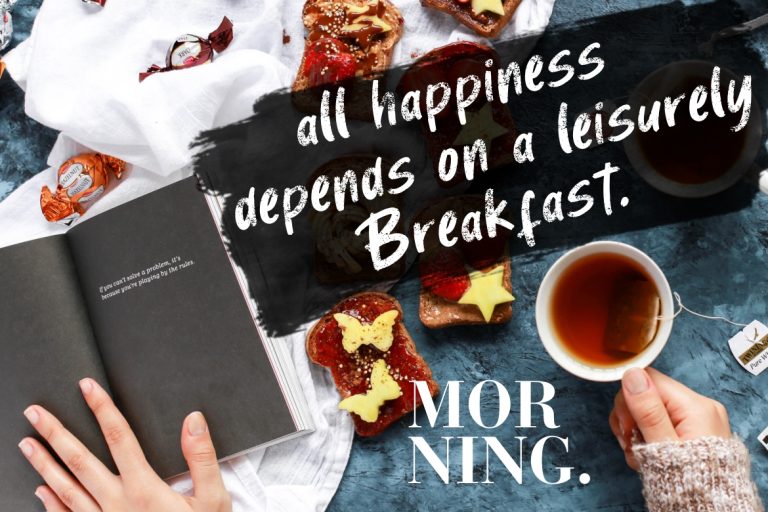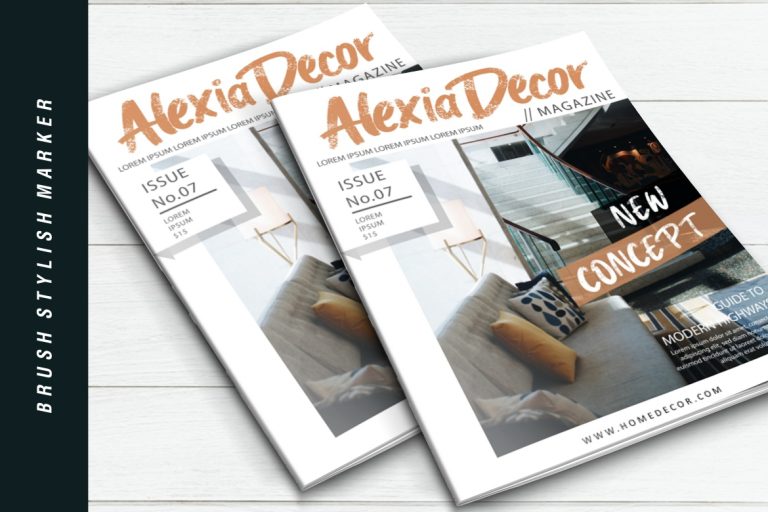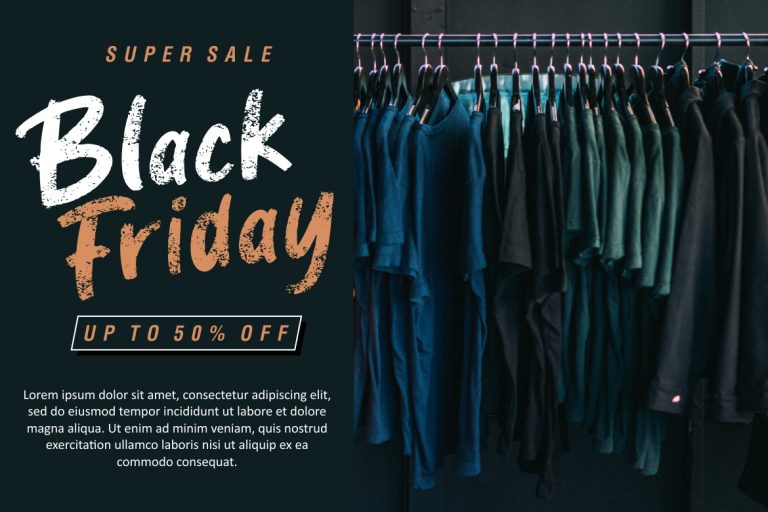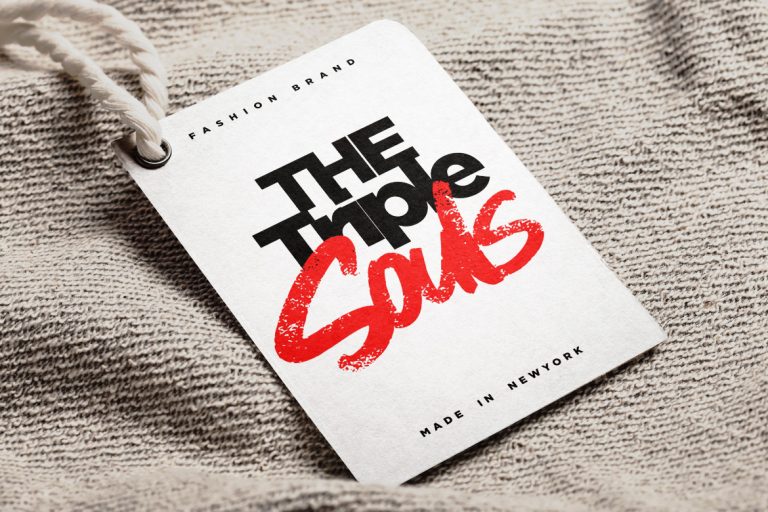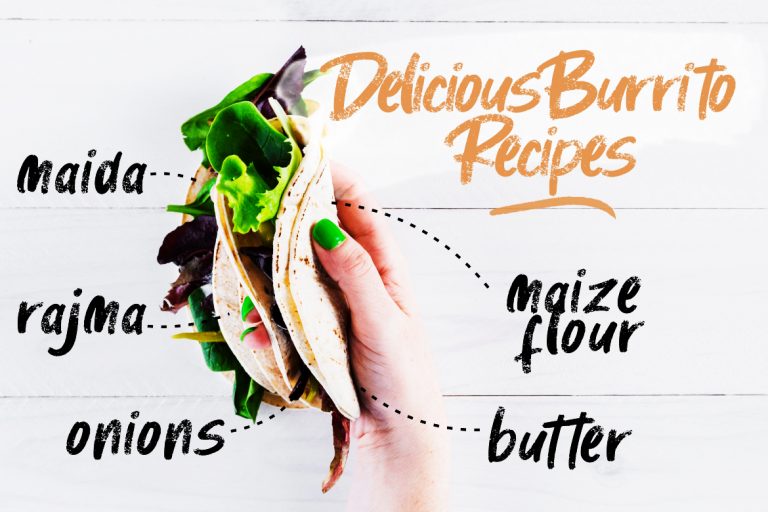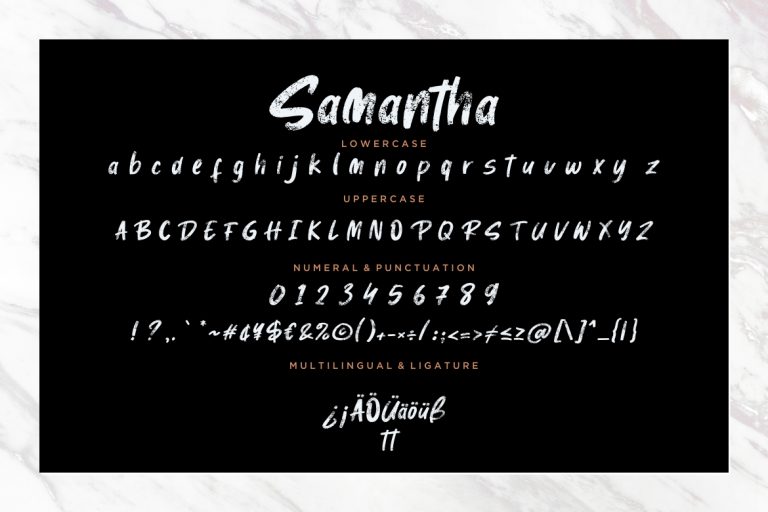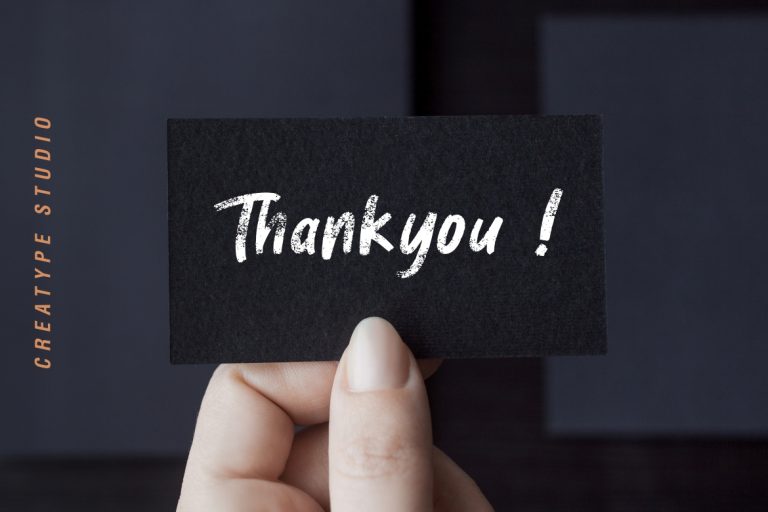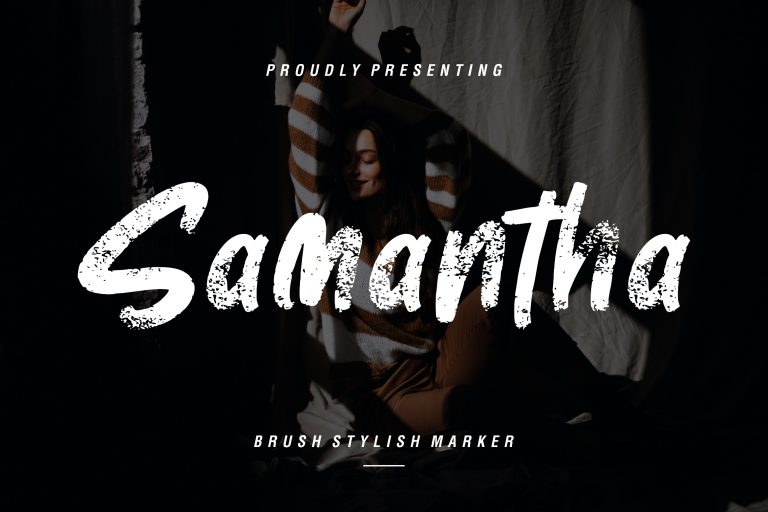
Samantha is handwritten brush script font with natural movement scratch.
Samantha is perfect for branding projects, logo, wedding designs, social media posts, advertisements, product packaging, product designs, label, photography, watermark, invitation, stationery and any projects that need handwriting taste.
• Fonts include multilingual support for; ä ö ü Ä Ö Ü ß ¿ ¡
Samantha Brush Stylish Marker